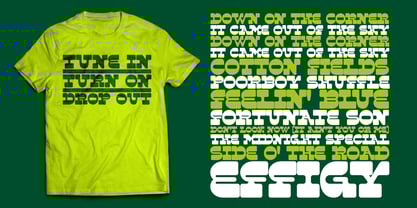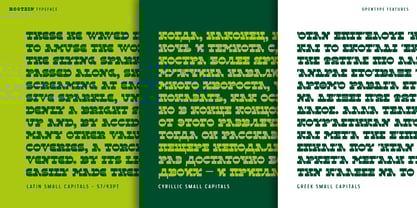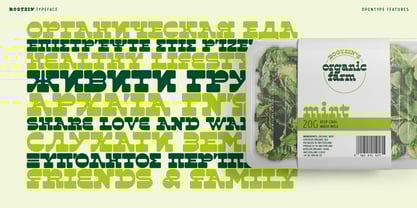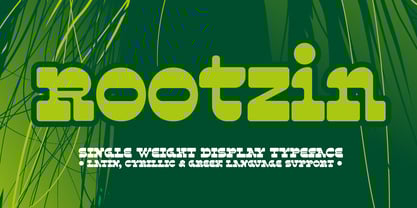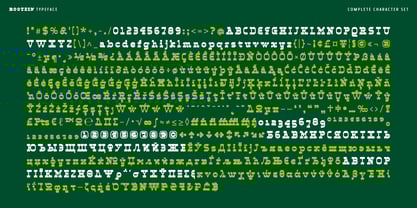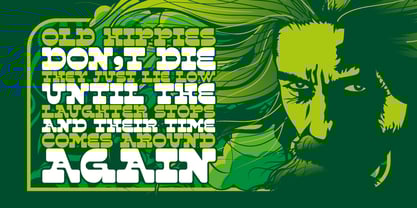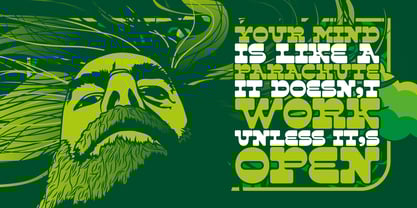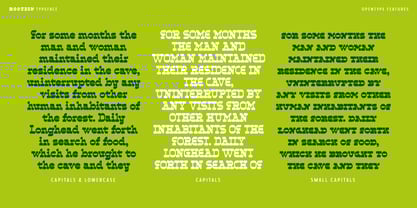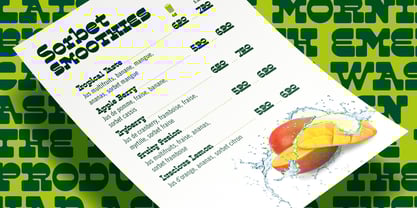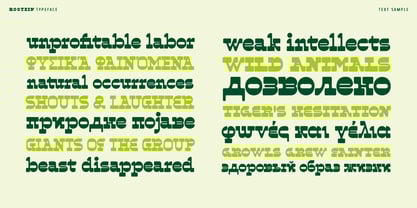
Rootzin
by Typogama
The Rootzin Font Family was designed by Michael Parson and published by Typogama. Rootzin contains 1 styles.
Rootzin is a reverse contrast slab serif typeface destined for headlines and use in large sizes. Despite being only one weight, the typeface exploits Opentype features to expand the layout solutions by offering a set of small capitals and a range of numeral styles that can add real flexibility to the design. With an expanded character set covering latin, Greek and Cyrillic, this typeface aims to be a bold voice that will grab attention.
About Typogama
Typogama is a digital foundry that features the typeface designs of Michael Parson. Launched in 2002, it has focused on creating unique and original designs that can be used either for display or text settings. Based in Geneva, Switzerland, Typogama aims to provide high quality designs that explore the possibilities of Opentype features while also providing a complete language support. Some of the typefaces equally offer Cyrillic or Greek support.